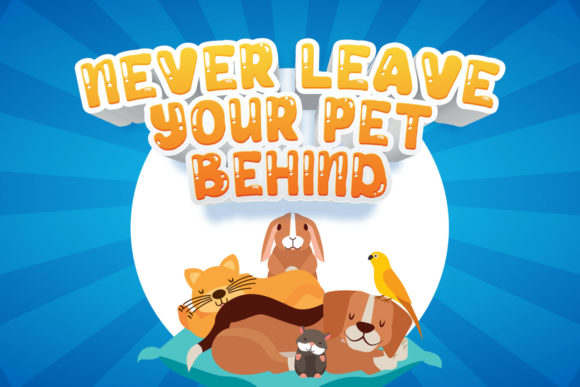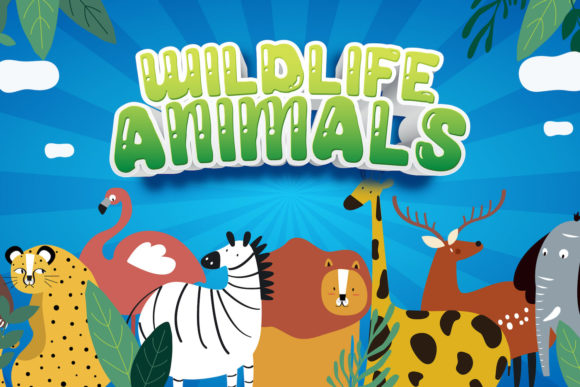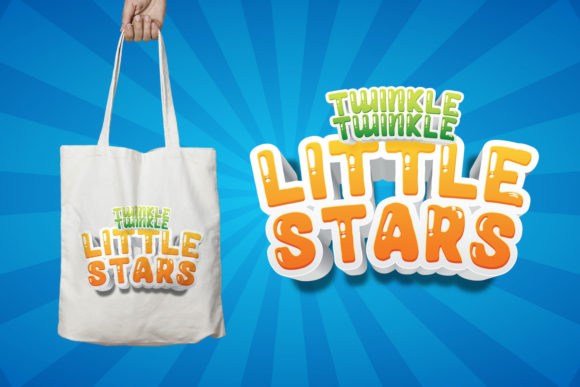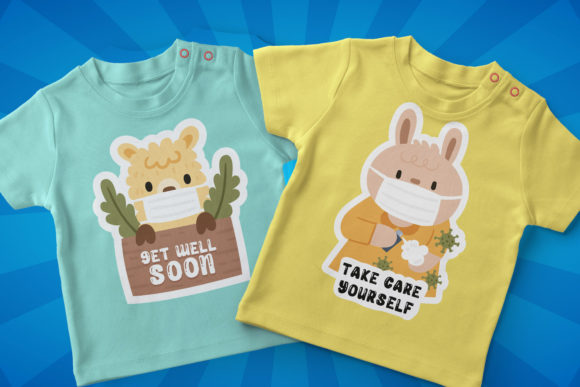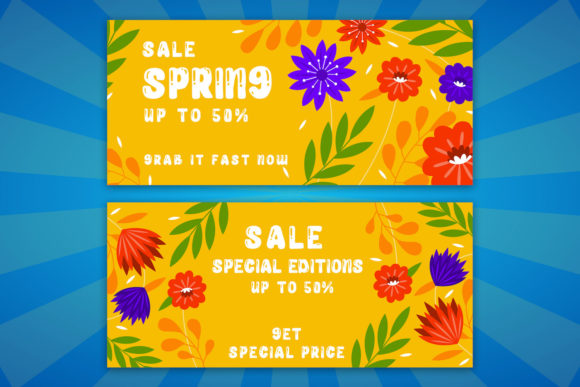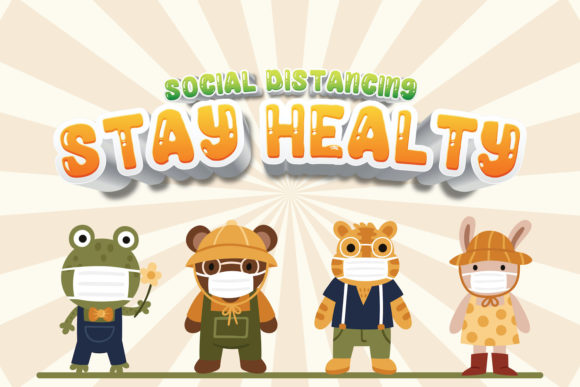
Introduction to Hey Kidos Font
Hey Kidos is a fun and chunky lettered display font.
Playful and fresh, this font will be a hit for each of your children or school projects .